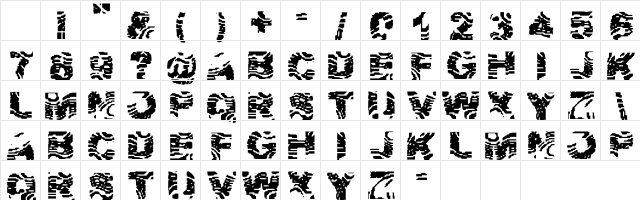
Complete Zebra Ztripez Regular glyph index. Displaying only characters natively supported by Zebra Ztripez Regular font.
Zebra Ztripez is a composed and adaptable typeface that performs quietly and consistently across a wide range of design contexts.